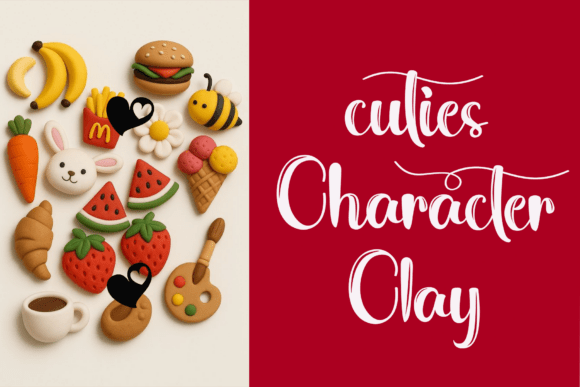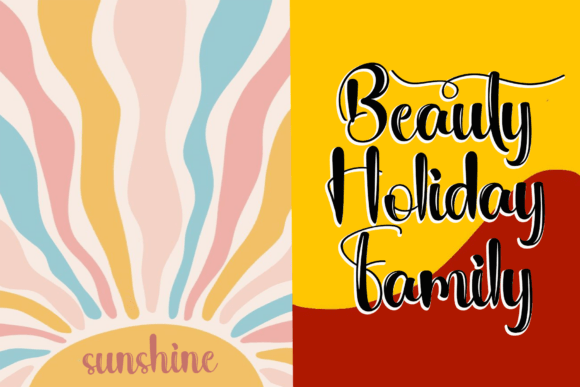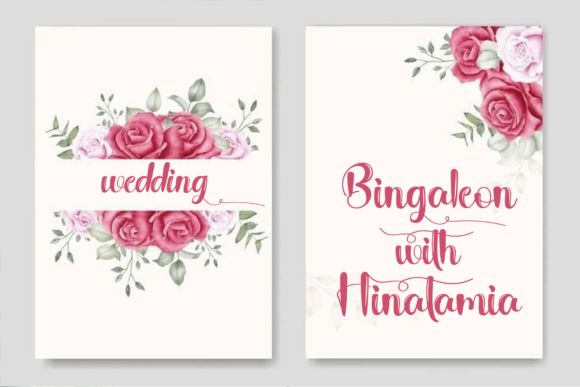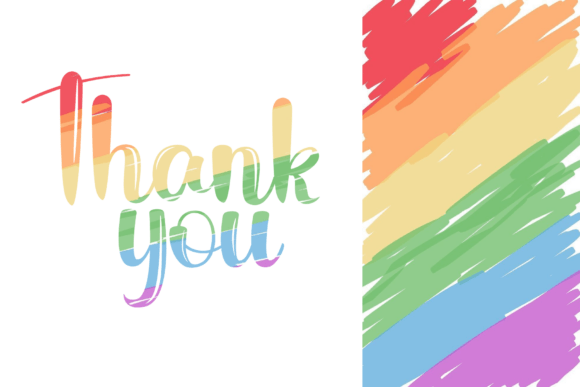
Introduction to Magnetico Font
As designers, we’ve all been there – staring at a blank canvas, struggling to bring our creative vision to life. But what if you had the perfect tool to give your project that extra oomph? Enter Magnetico Font, a luxurious script font that’s about to revolutionize your design game.
With its dramatic swashes and elegant curves, Magnetico Font is the epitome of refined charm. Inspired by classic calligraphy, this high-quality typeface is perfect for upscale branding, food packaging, wedding invitations, or any project that needs a touch of sophistication. Whether you’re working on a creative project with a transparent background or need a design resource that exudes luxury, Magnetico Font is the perfect addition to your design arsenal.
Key Features of Magnetico Font
- Unique, hand-drawn design suitable for creative projects, with a transparent background for easy customization.
- Designed to be highly versatile, with a wide range of applications in graphic design, digital art, and more.
- Perfect for designers seeking a unique, high-quality design resource to elevate their creative projects.
- Includes a comprehensive character set, ensuring that users have access to all the necessary glyphs and symbols for their design needs.
Honest Review: Magnetico Font
I recently had the chance to dive into the Magnetico Font, a design resource that caught my attention with its unique aesthetic. As a designer, I appreciate when fonts like this one offer a fresh perspective, making it easier to create something truly special for my projects.
What works well: ✨ The Magnetico Font’s design is incredibly versatile, making it suitable for a wide range of creative projects, from branding to editorial content. Its modern look and feel make it a great choice for anyone looking to add a touch of sophistication to their work.
Some of the standout features of this font include:
- High-quality design that translates well to both print and digital formats.
- A transparent background, allowing for seamless integration into any design.
However, there are a few limitations to consider: ⚠️ The font only includes a limited character set, which may not be suitable for more complex projects. Additionally, some users may find the font’s modern look to be a bit too bold for their taste.
Overall, I’m impressed with the Magnetico Font and would recommend it to designers looking for a high-quality, unique font to add to their creative arsenal. Whether you’re working on a branding project or creating editorial content, this font is definitely worth considering.
Magnetico Font
The Magnetico Font is a versatile and high-quality design resource that can be used in a variety of creative projects. With its unique style and transparent background, it’s perfect for designers who want to add a touch of elegance to their work.
Tips for Getting the Most Out of Magnetico Font
To get the most out of the Magnetico Font, be sure to experiment with different sizes and styles to find the perfect look for your project. You can also use the font in combination with other design elements to create a unique and eye-catching design.
The Magnetico Font is perfect for a variety of creative projects, including:
- Birthday party decorations
Does Magnetico Font have a transparent background?
Yes, Magnetico Font has a transparent background, making it perfect for designers who want to create designs with a seamless and modern look. The transparent background allows you to easily combine the font with other design elements, such as images or shapes, without any visual